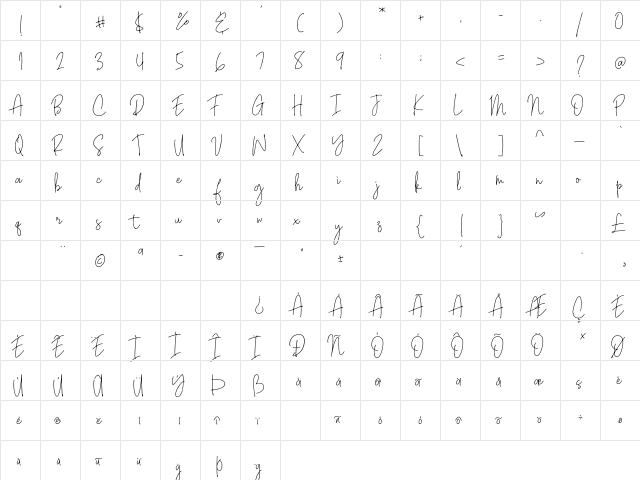
Bianka Script Regular
Design Context for Bianka Script Typeface
Bianka Script brings a calligraphic fluidity to the page — its connecting strokes and expressive curves give it an unmistakably human quality.
Font Pairing: Combine Bianka Script with a simple geometric sans for maximum contrast — the tension between flowing curves and clean structure is a classic typographic pairing.
Pro Tip: Use Bianka Script for short runs of text — names, titles, or taglines. Extended body copy in script faces tires the eye quickly.